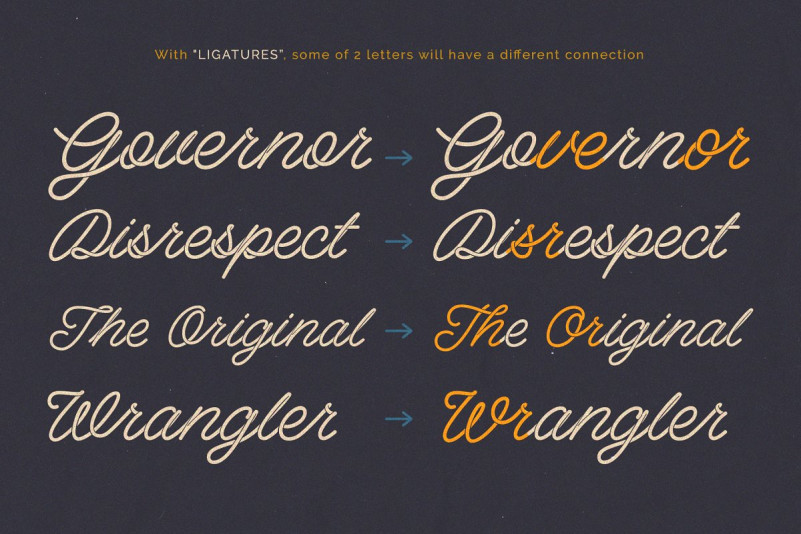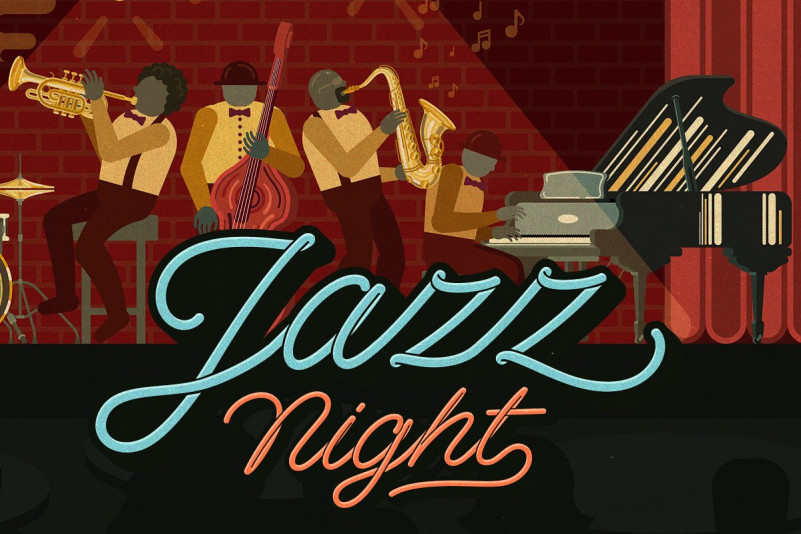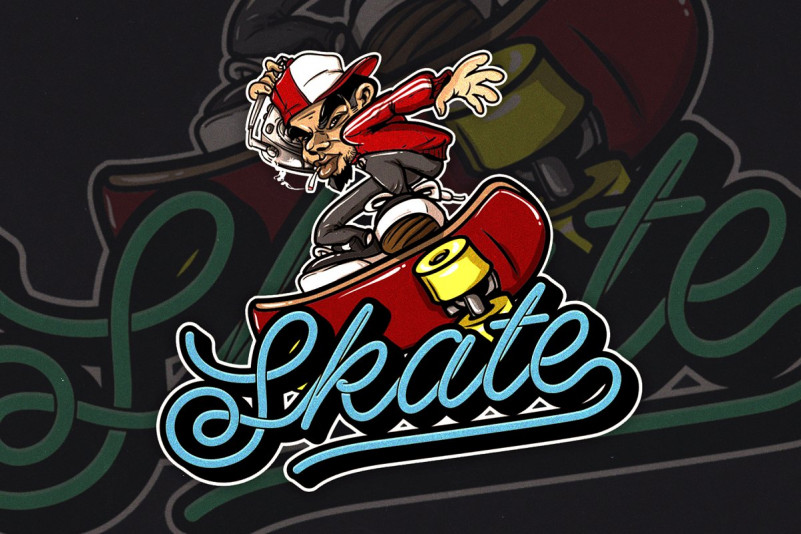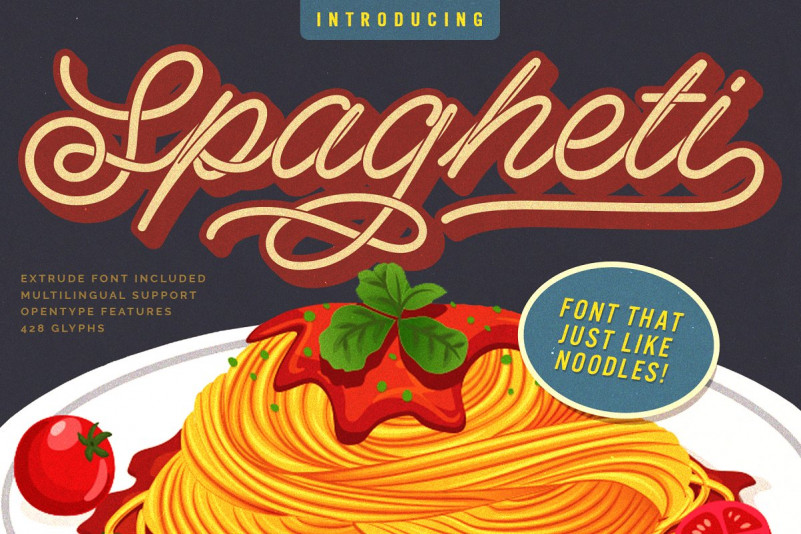
Spagheti Script Font
Hello everyone, are you looking for a monolined font? This font is especially for you if you need to add tenderness to your project. Introducing Spagheti Font. It’s designed and shared by Hendra Pratama. The stenciled or the cut-off shapes from this lovely curve font not only will make your typography looks like a noodles formed into a flow connected letters, but also will make your type designs like it is made from a custom hand lettering. And if you pairing the regular font with the Extruded Font , you can create 3D extruded text effect so easy!